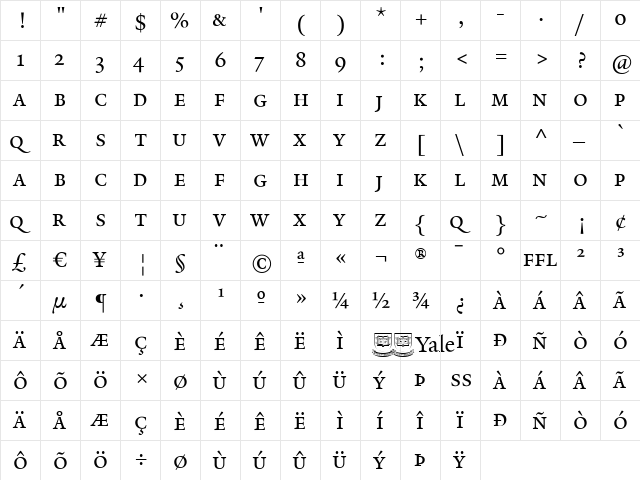
YaleWebSmallCap Regular
| Foundry | Carter & Cone Type Inc |
Design Context for YaleWebSmallCap Typeface
YaleWebSmallCap offers clean, dependable letterforms without strong stylistic allegiance, making it a practical choice for designers who need flexibility.